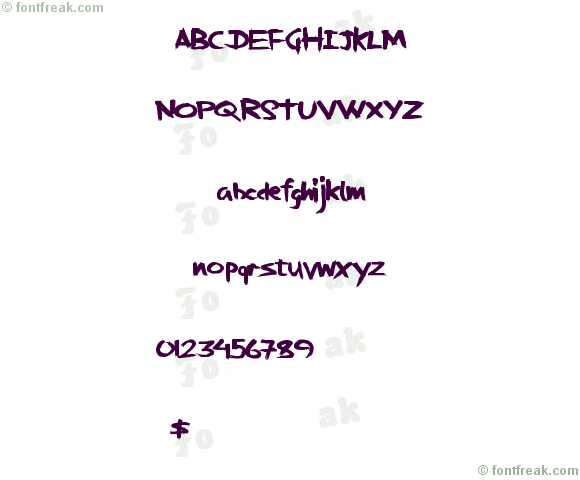
ExpensiveSolutions
The ExpensiveSolutions font by XEROGRAPHER FONTS is a unique display typeface that captures attention with its bold, artistic flair. This font features a playful, handwritten style that combines a casual elegance with a touch of sophistication, making it an excellent choice for a variety of creative projects. The stroke weight is dynamic, creating a contrast that adds visual interest, while the spacing between letters is thoughtfully designed to ensure readability without sacrificing artistic expression. The decorative elements give it a distinctive character, making it perfect for designs that require a personal touch.
Ideal use cases for the ExpensiveSolutions font include wedding invitations, where its charming style can convey warmth and intimacy. It also works beautifully on restaurant menus, adding a touch of creativity that reflects a unique dining experience. Movie posters can benefit from its eye-catching design, drawing viewers in with its distinctive flair. Additionally, it serves well for branding materials, particularly for small businesses looking to establish a memorable identity. Content creators will find it useful for social media graphics, where an engaging font can enhance their message and attract more followers.
What truly sets the ExpensiveSolutions font apart is its ability to blend casual charm with high-end aesthetics, making it suitable for both formal and informal applications. Its versatility ensures that it stands out in any design, leaving a lasting impression on audiences.